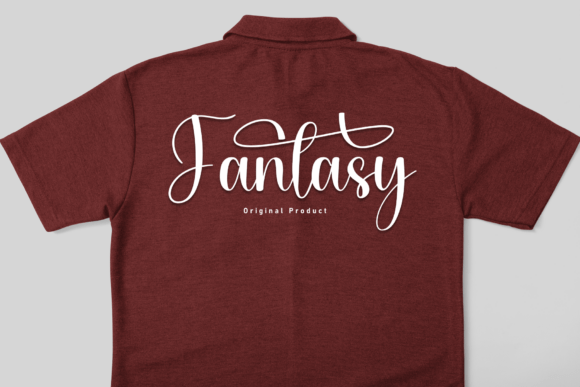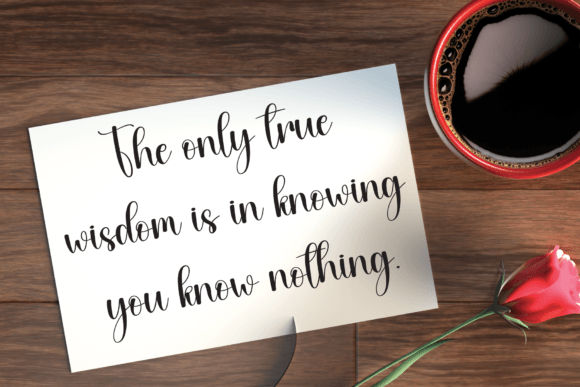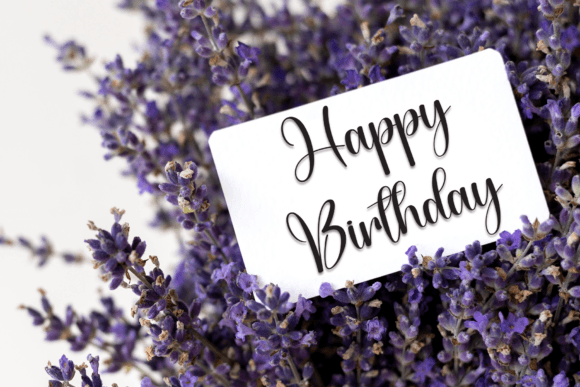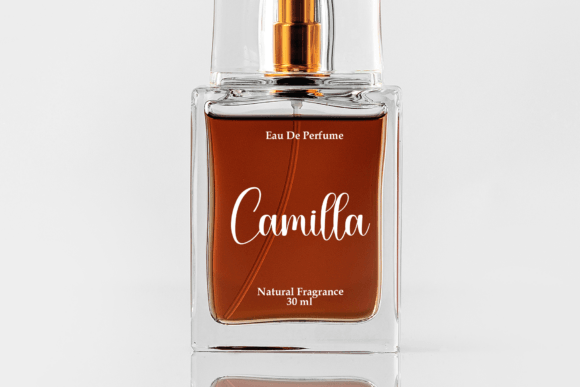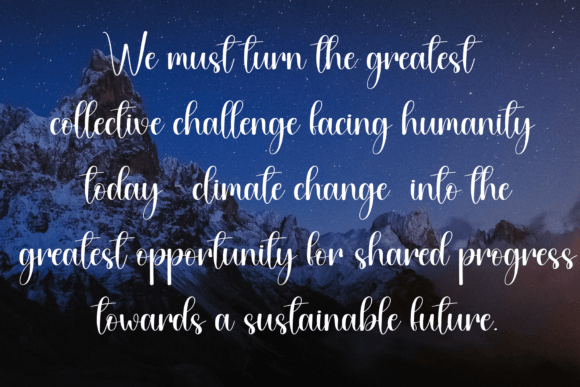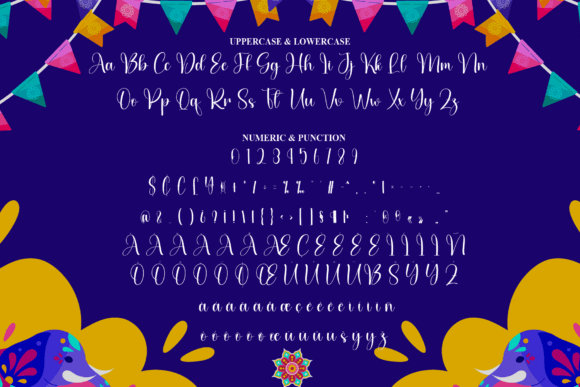
Introducing Bestival Font: Elevate Your Designs with Elegance and Modern Flair
In the world of typography, a font can make or break the aesthetic of a project. For designers and crafters seeking to infuse their work with a touch of sophistication and modernity, Bestival Font is an exceptional choice. This stylish handwritten script font seamlessly blends elegance with a contemporary edge, making it perfect for a wide range of applications, from branding and invitations to social media and beyond.
The Charm of Bestival Font
Bestival Font is characterized by its flowing strokes and organic curves, which bring a sense of warmth and refinement to any project. Its unique charm lies in its ability to add a personal touch without compromising on sophistication. Whether you’re working on a luxury brand identity, a wedding invitation, or a social media post, Bestival Font lends an effortless elegance that captivates audiences.
Key Features of Bestival Font
- Elegant Handwritten Style: Bestival Font boasts a beautiful, handwritten script that adds a personal and refined touch to your designs.
- Modern Flair: With its clean lines and contemporary feel, this font is perfect for projects that demand a modern aesthetic.
- Versatility: Ideal for a variety of applications, including branding, invitations, social media posts, and more.
- Easy to Read: Despite its elegant and cursive nature, Bestival Font maintains excellent readability, making it suitable for both headings and body text.
- Unique Character: Each letterform is carefully crafted to ensure a distinctive and stylish appearance that sets your work apart.
Applications of Bestival Font
The versatility of Bestival Font makes it an invaluable asset for designers and crafters across various projects:
Branding and Logotypes
For brands aiming to establish a sophisticated and modern image, Bestival Font offers a stylish solution. Its unique character can help create a memorable logo that stands out in the market.
Invitations and Announcements
Make your invitations, wedding cards, or event announcements special with Bestival Font. Its elegant appearance adds a touch of luxury and personalization, making the recipient feel valued.
Social Media and Marketing Materials
Elevate your social media posts, flyers, and brochures with Bestival Font. Its modern flair and readability ensure your message is conveyed with style and impact.
Tips for Using Bestival Font
- Pair with Complementary Fonts: Combine Bestival Font with clean sans-serif fonts for contrast and visual interest.
- Adjust Letter Spacing: For headings, slightly reduce letter spacing to enhance the font’s elegant appearance.
- Experiment with Colors: While Bestival Font looks stunning in black or dark colors, don’t hesitate to experiment with soft pastels or rich tones to match your project’s theme.
Bestival Font is more than just a typeface; it’s a design statement that combines elegance with a modern edge. Its versatility, readability, and stylish appearance make it an excellent choice for designers and crafters looking to elevate their projects. Whether you’re aiming to create a lasting brand impression, craft beautiful invitations, or enhance your social media presence, Bestival Font is your gateway to designs that are both refined and captivating. Embrace the charm of Bestival Font and let your creativity shine with sophistication and style.